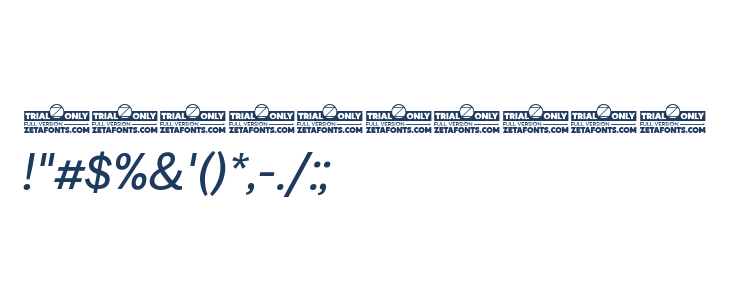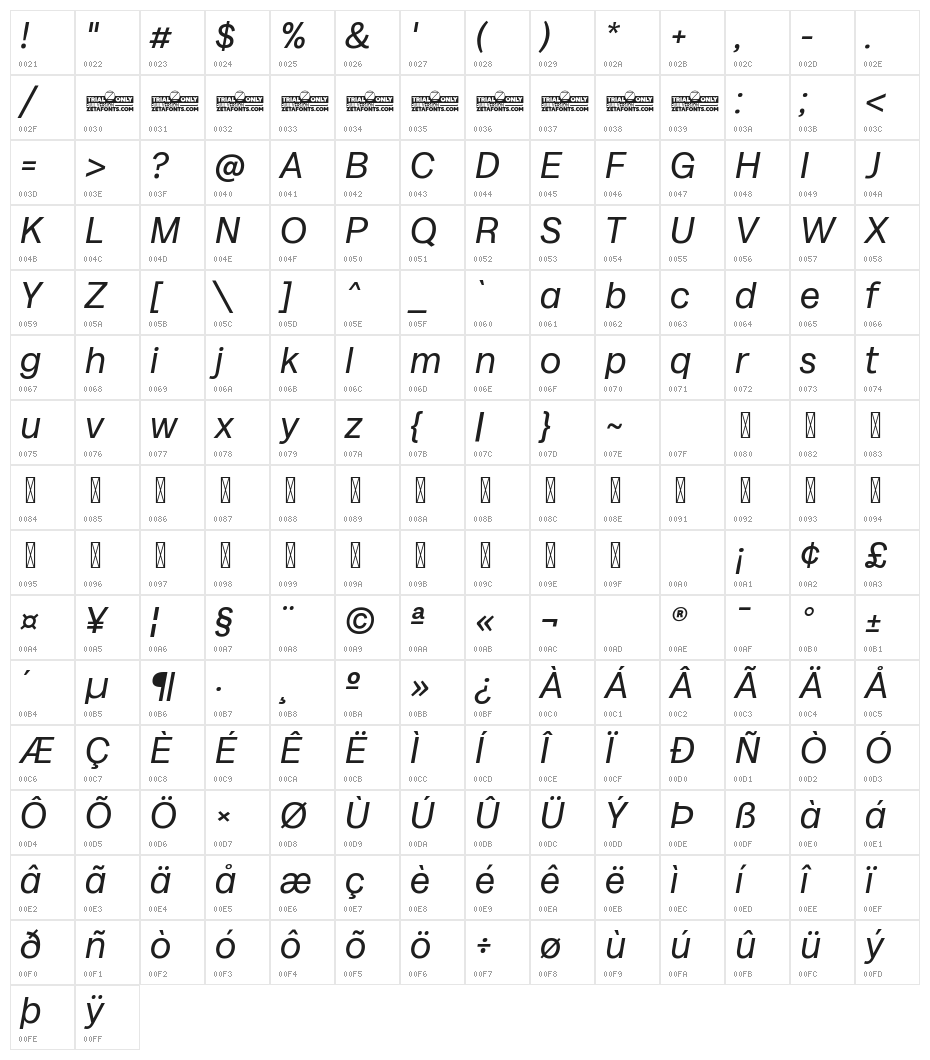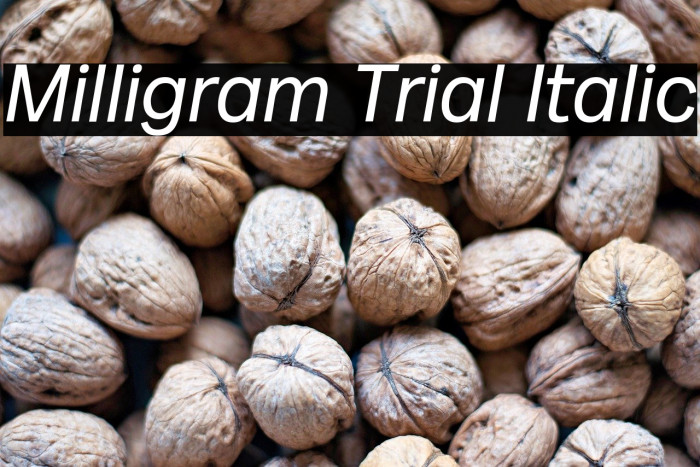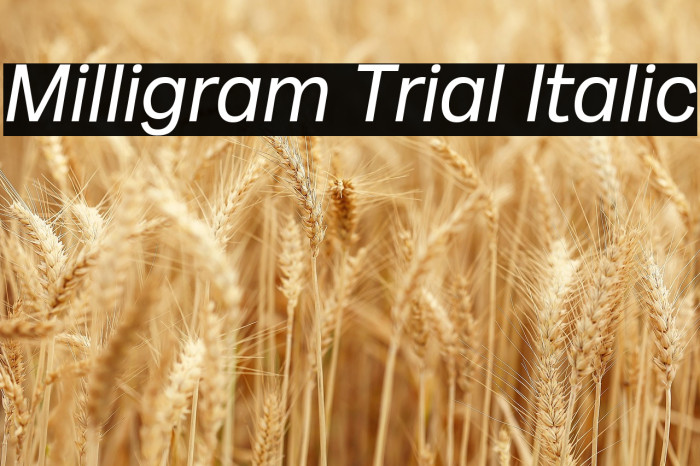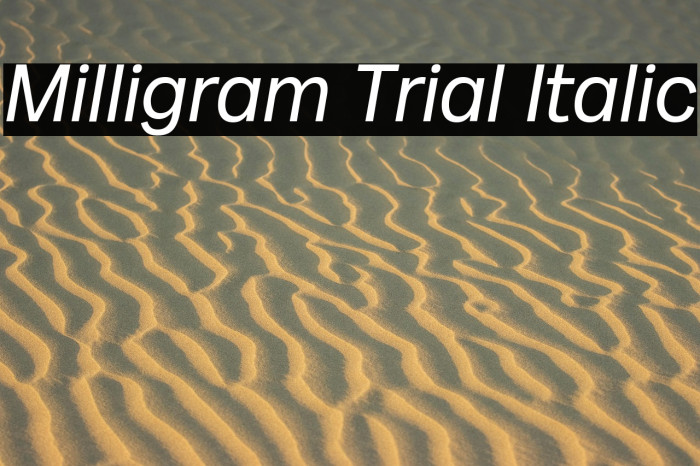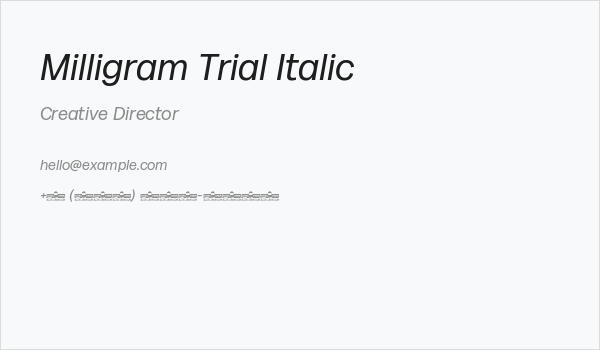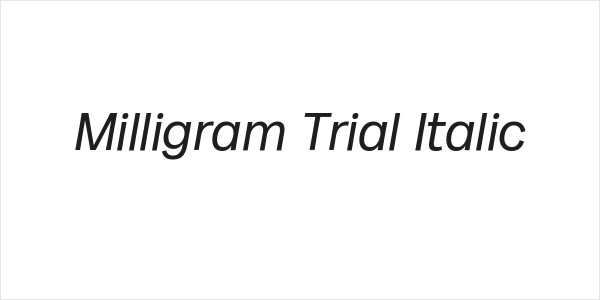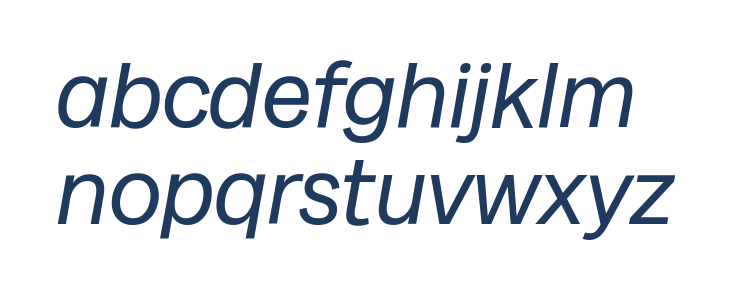
Milligram Trial Italic Font
Milligram Trial Italic Description
This font features a sleek, modern design with a slight italic slant, giving it a dynamic and forward-moving appearance. The characters are clean and sans-serif, emphasizing simplicity and readability. The strokes are consistent in weight, providing a uniform look across all characters. The font maintains a balanced proportion, making it versatile for various design applications. Its contemporary style is suitable for digital and print media, offering a professional yet approachable feel.
| Proposed Projects | Ideal for branding, advertising, web design, and editorial layouts where a modern and professional look is desired. |